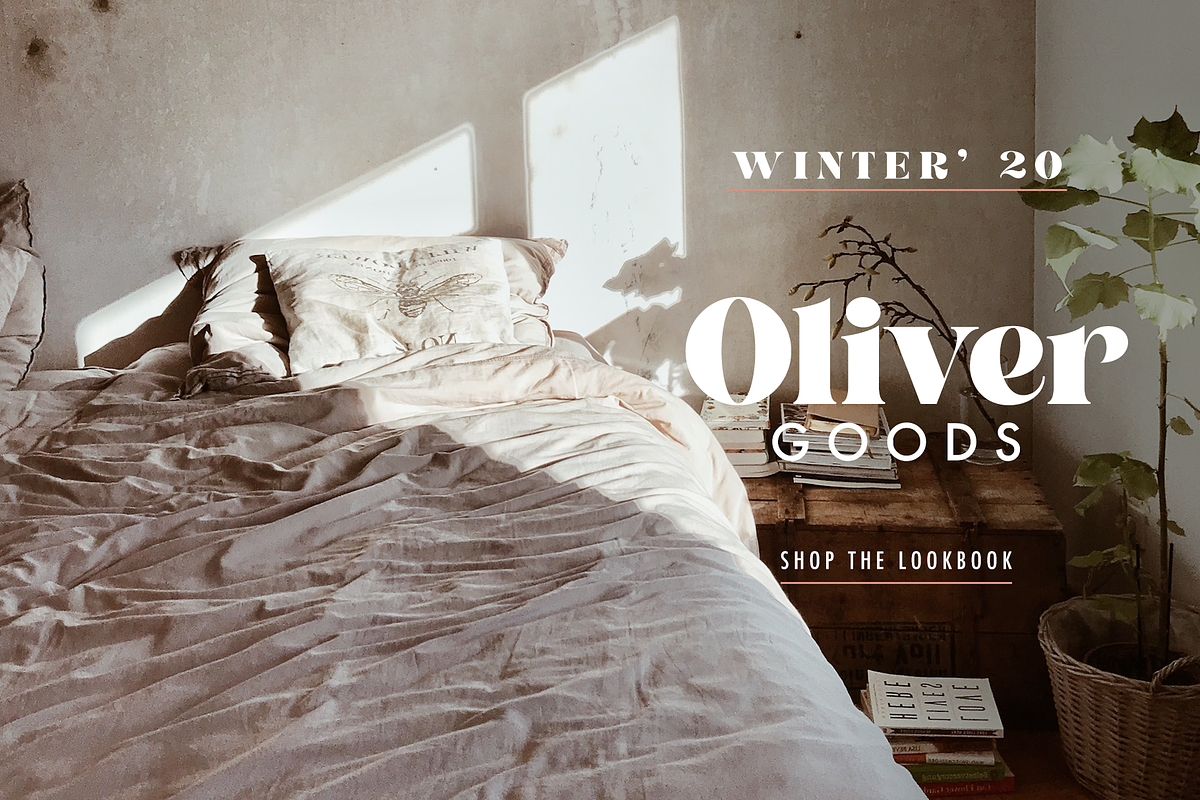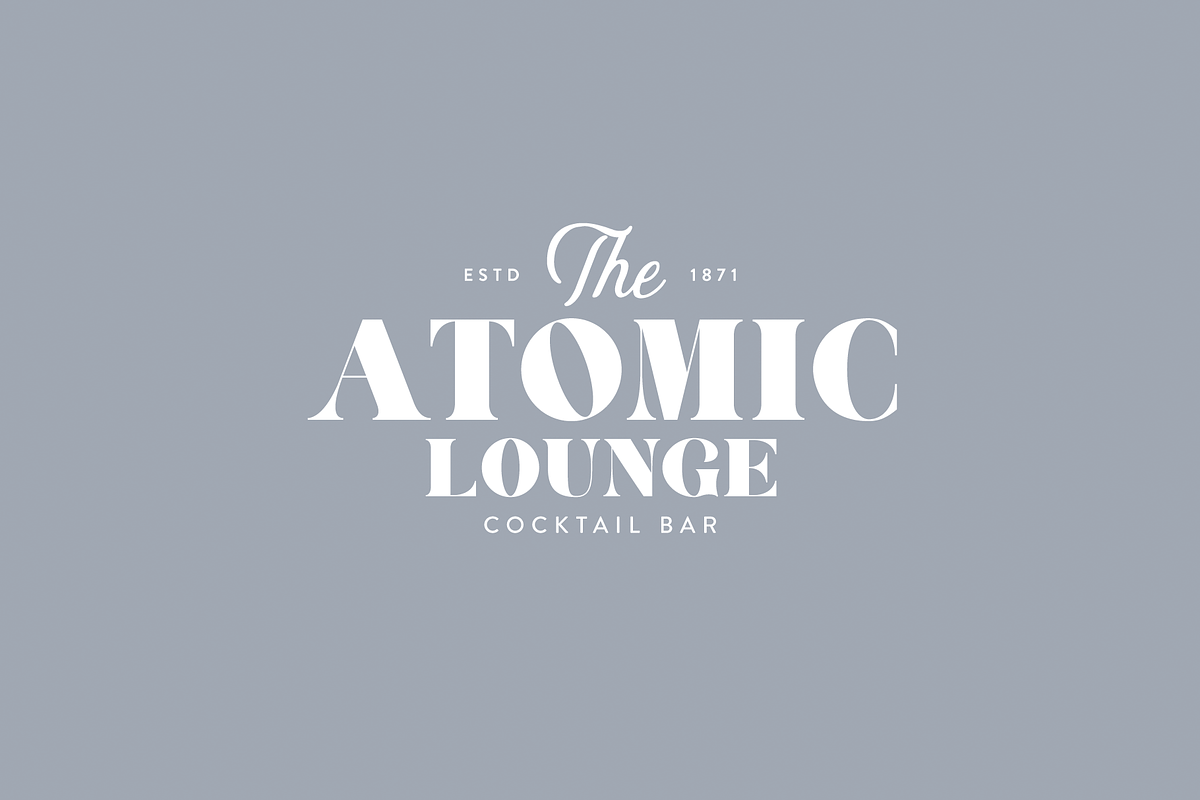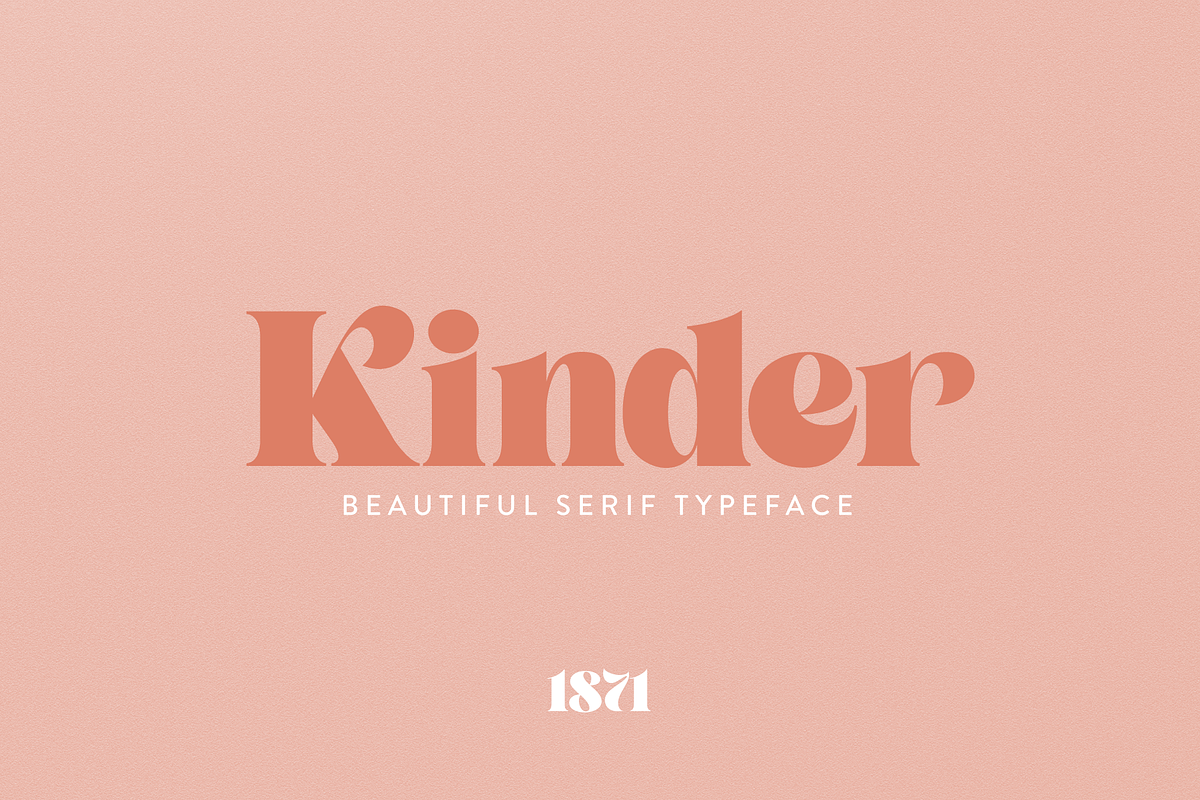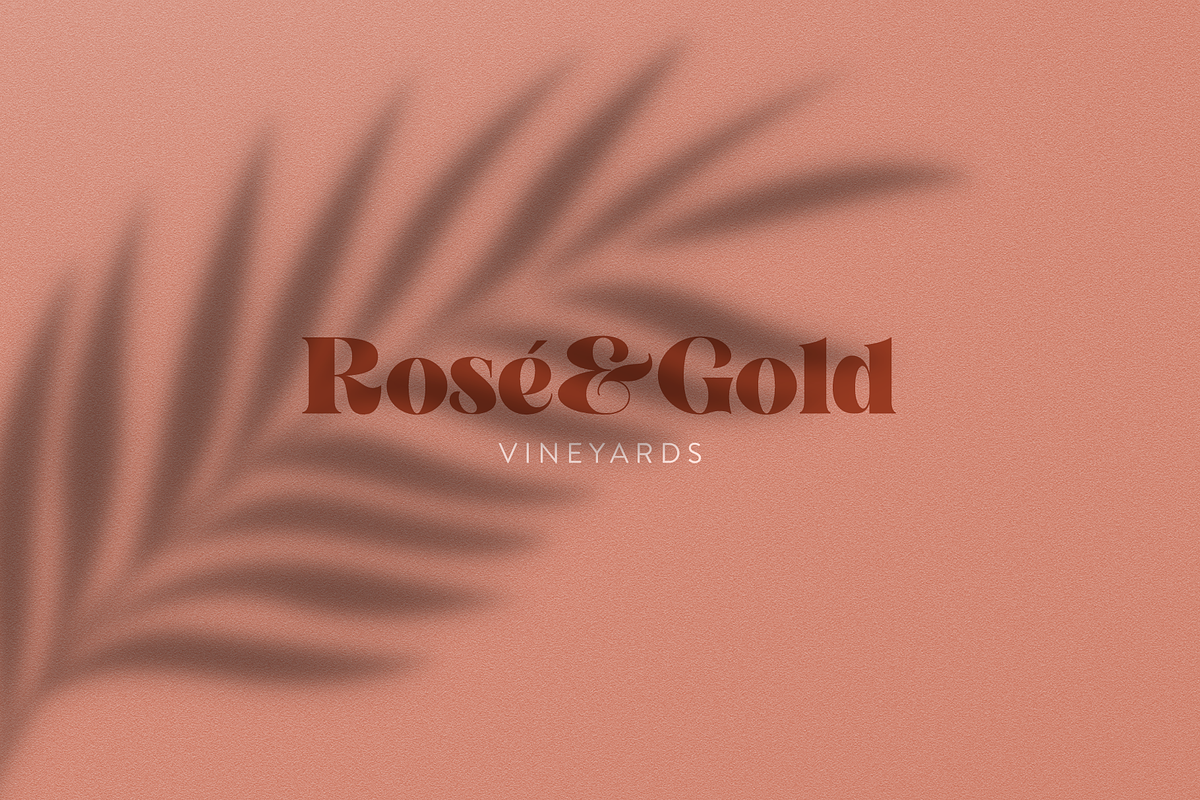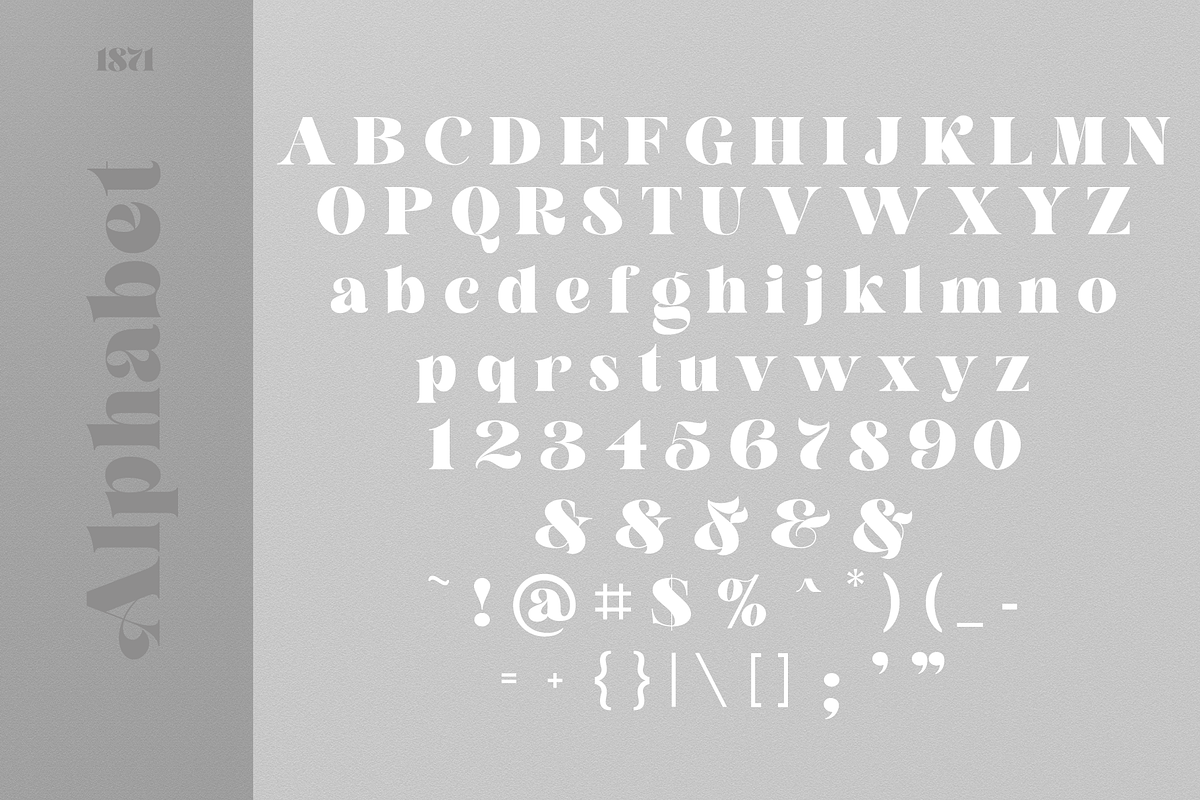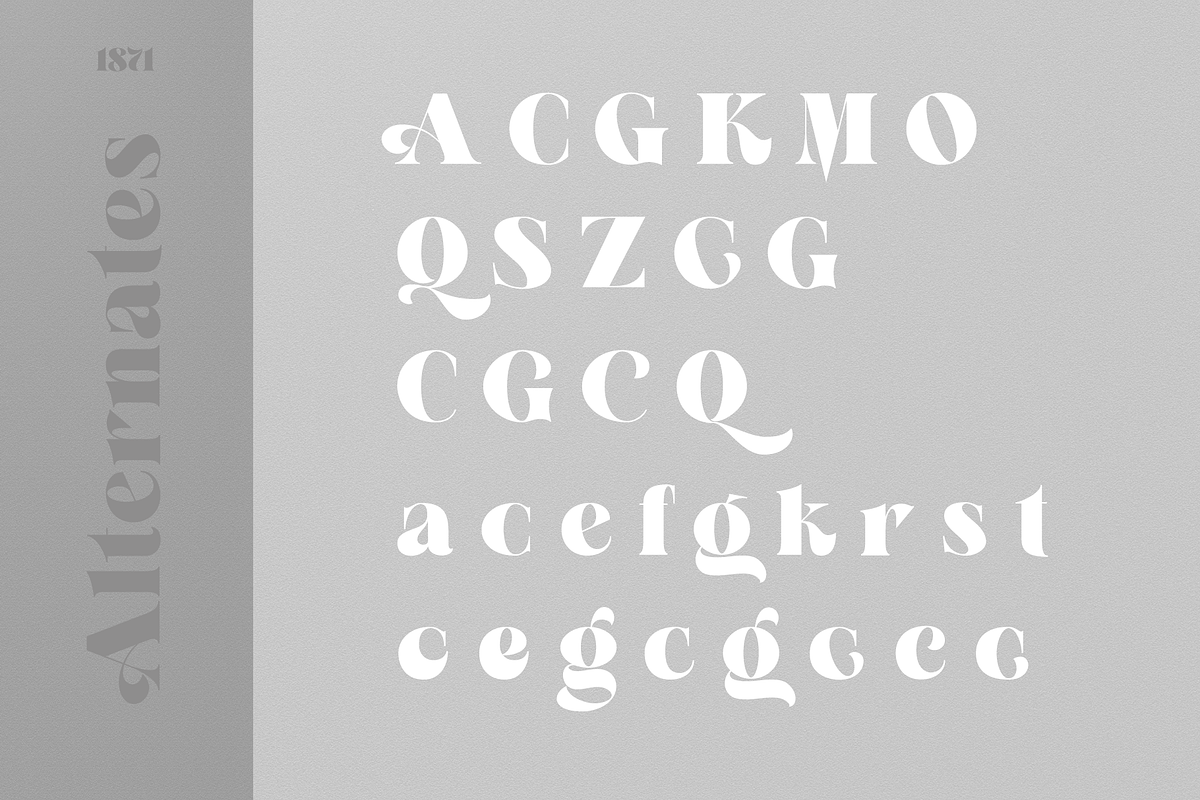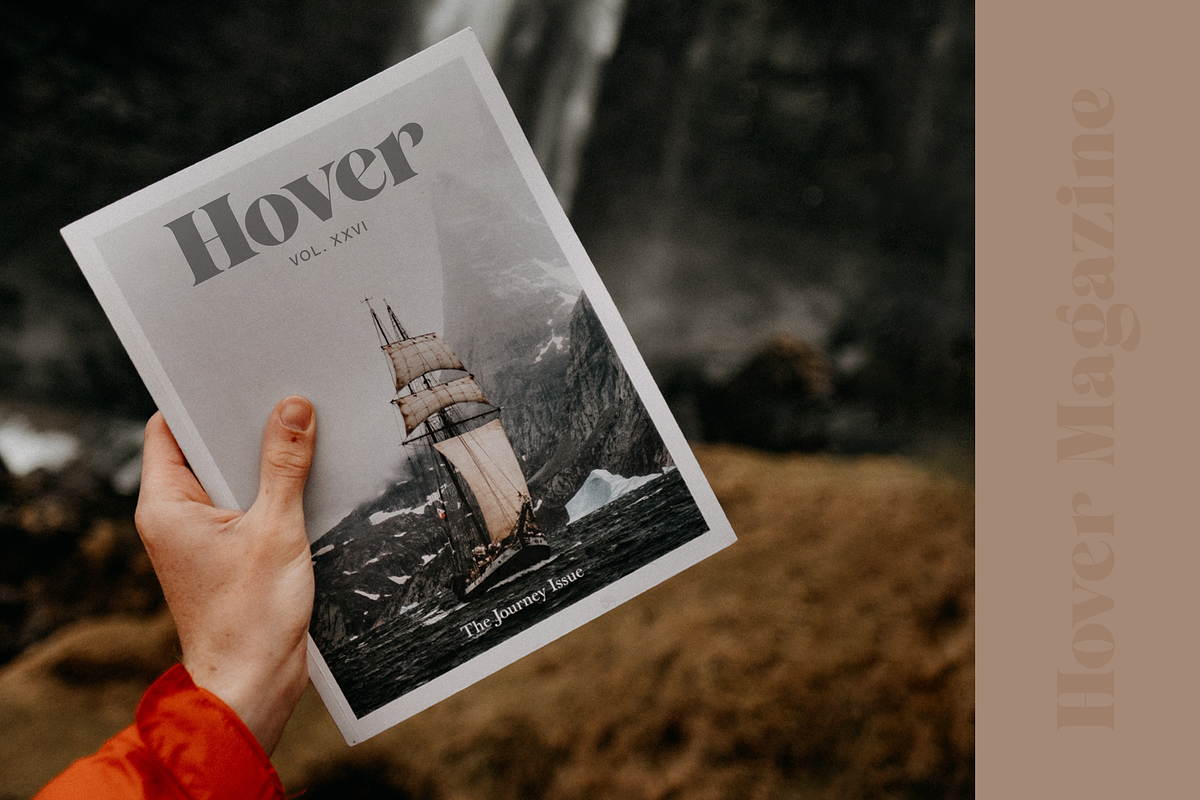
Kinder Font
Introducing Kinder, our first serif font featuring both upper and lowercase characters! Featuring unique beautiful curves and a modern feel (look at that K!) Inspired by old records and vintage typography, with an 1871 spin. It has a beautiful range of stylistic alternates with unique characters making it a versatile powerhouse for logos, headlines, posters, shirts, you name it! Pick up Kinder today and make the world more beautiful with your creations!
40 Unique Alternates to make your new design truly yours.